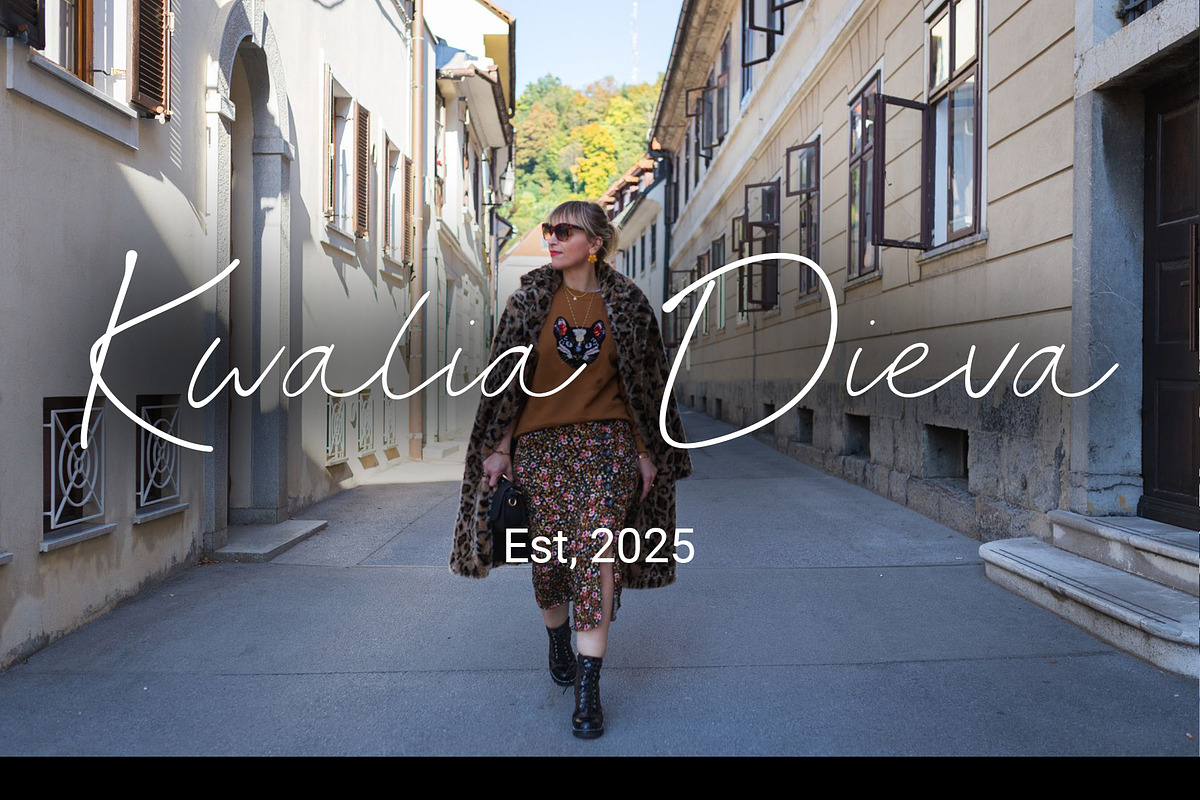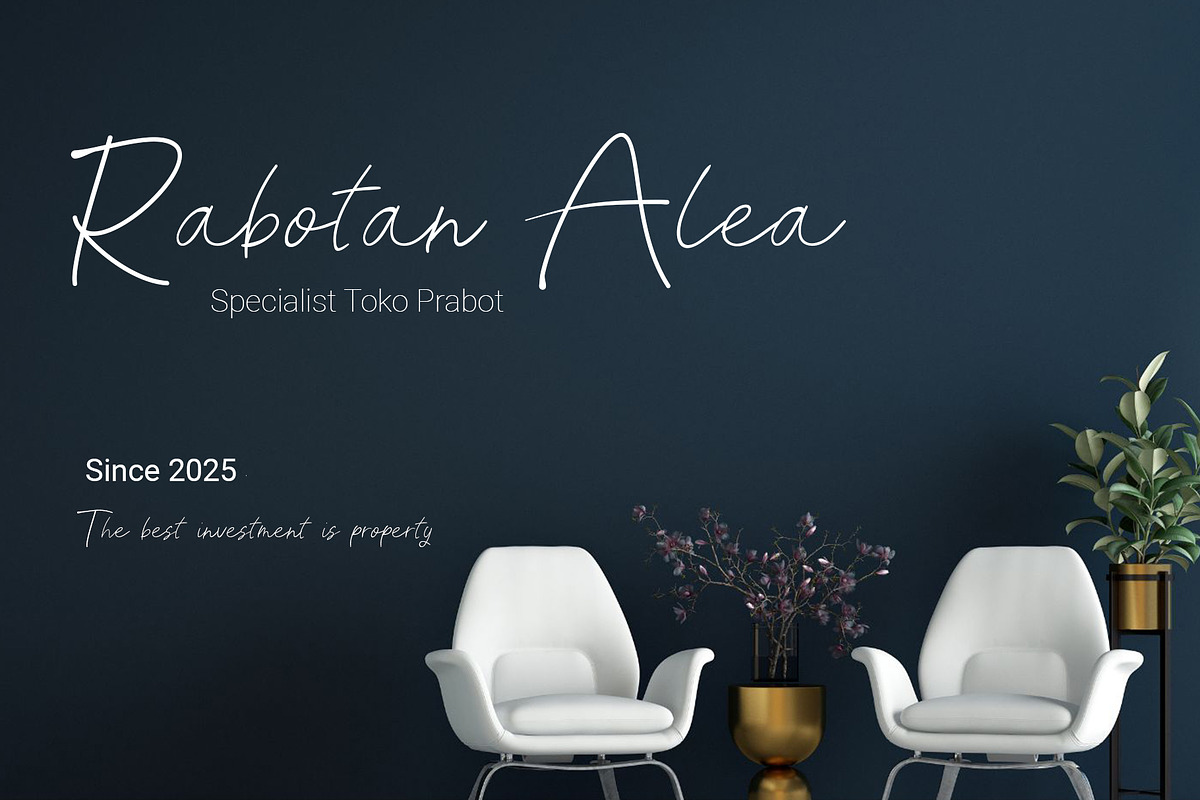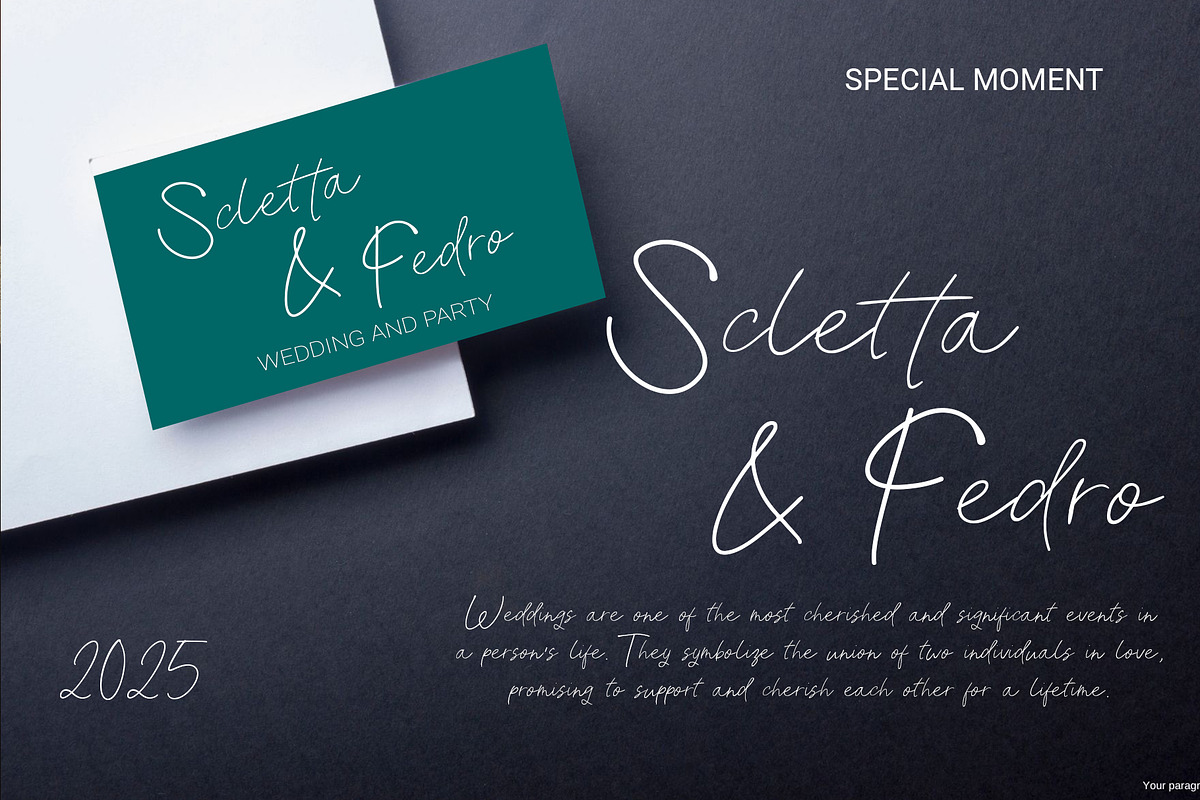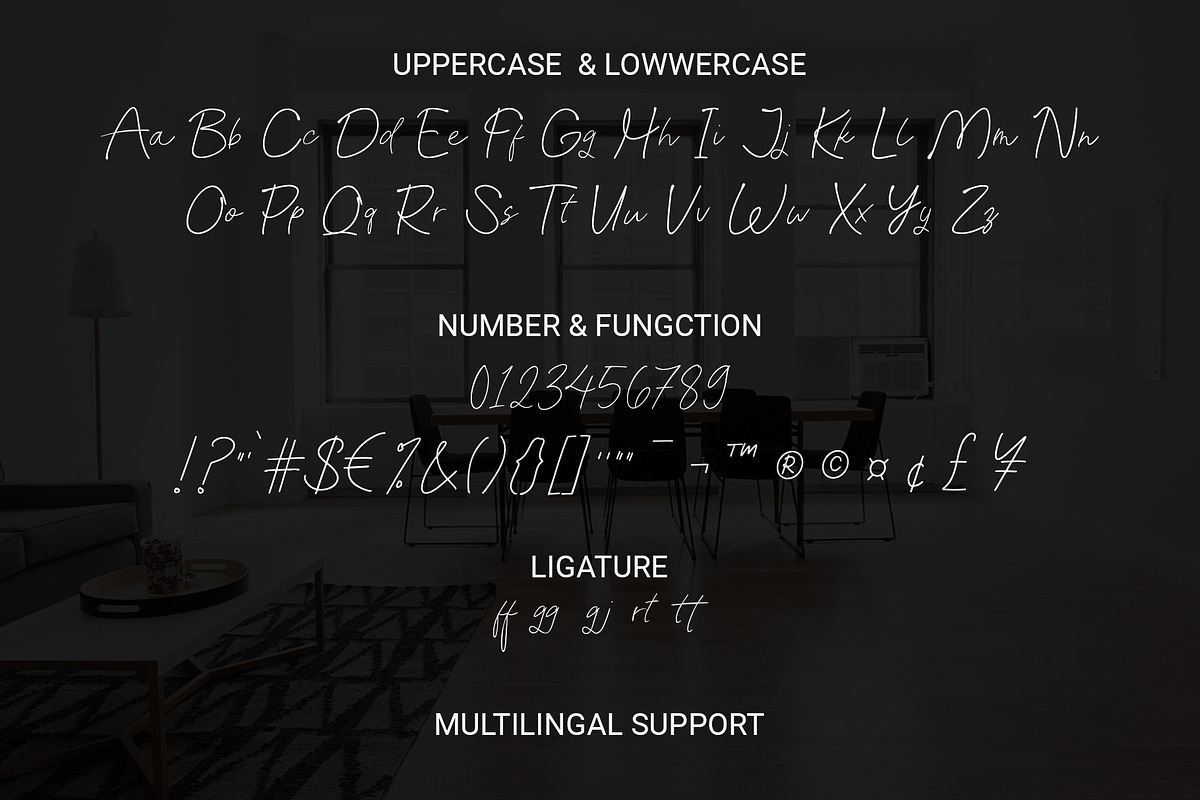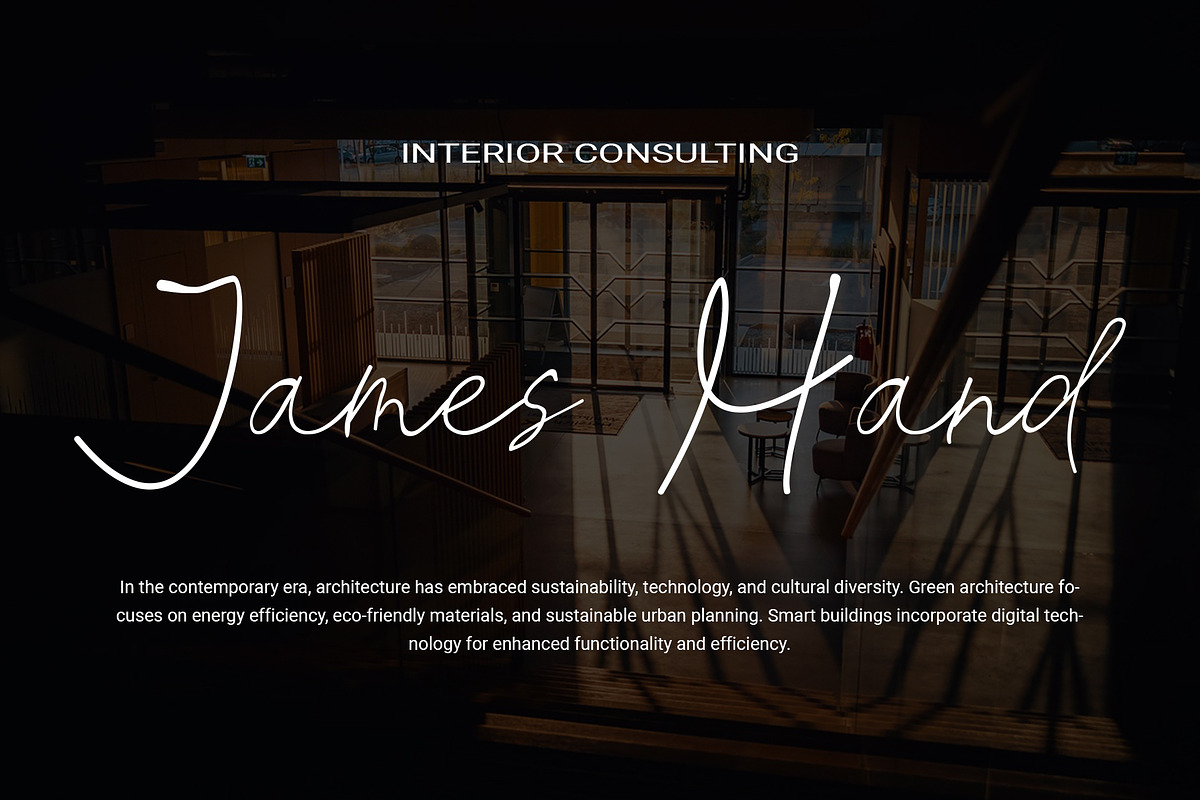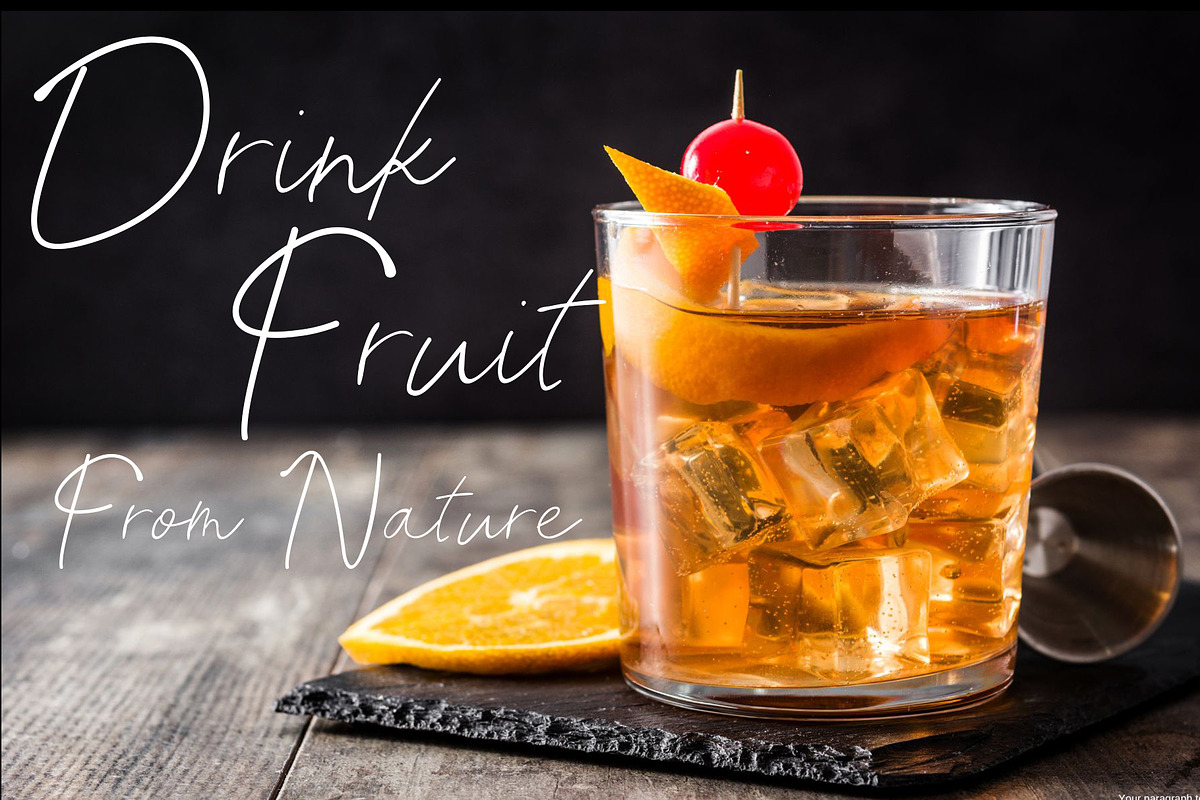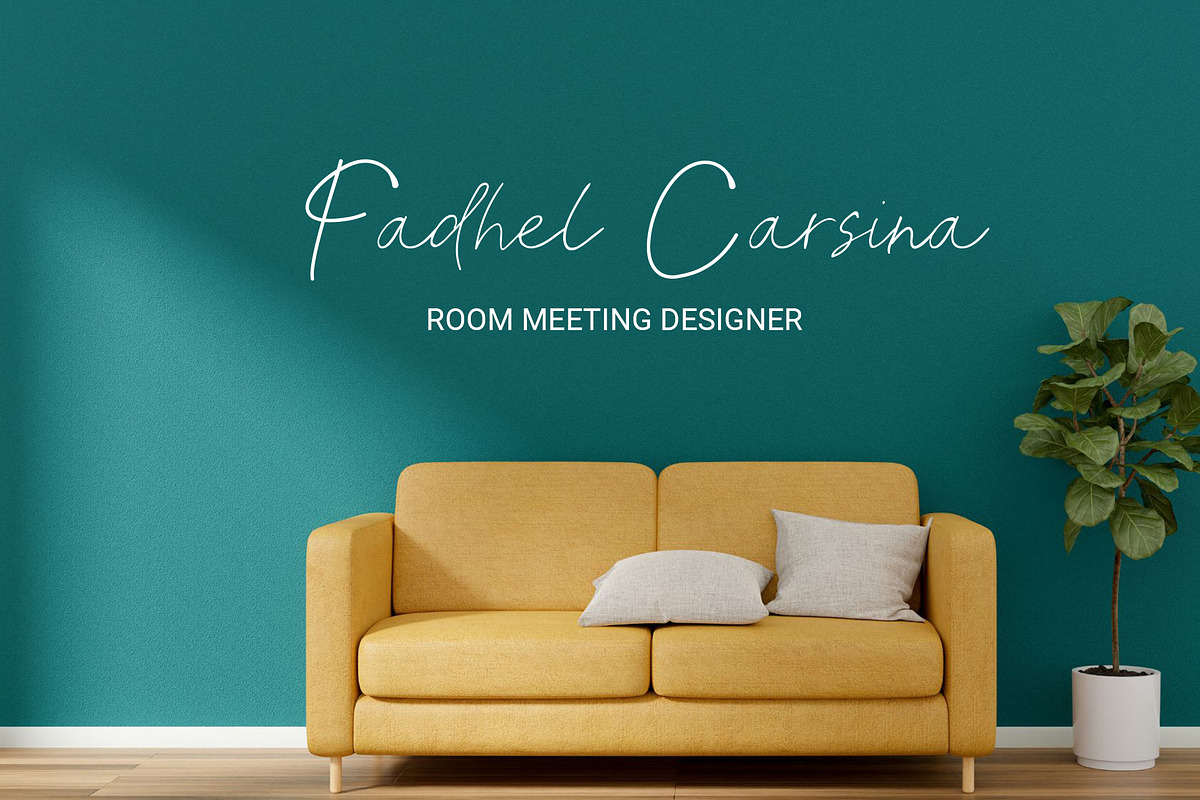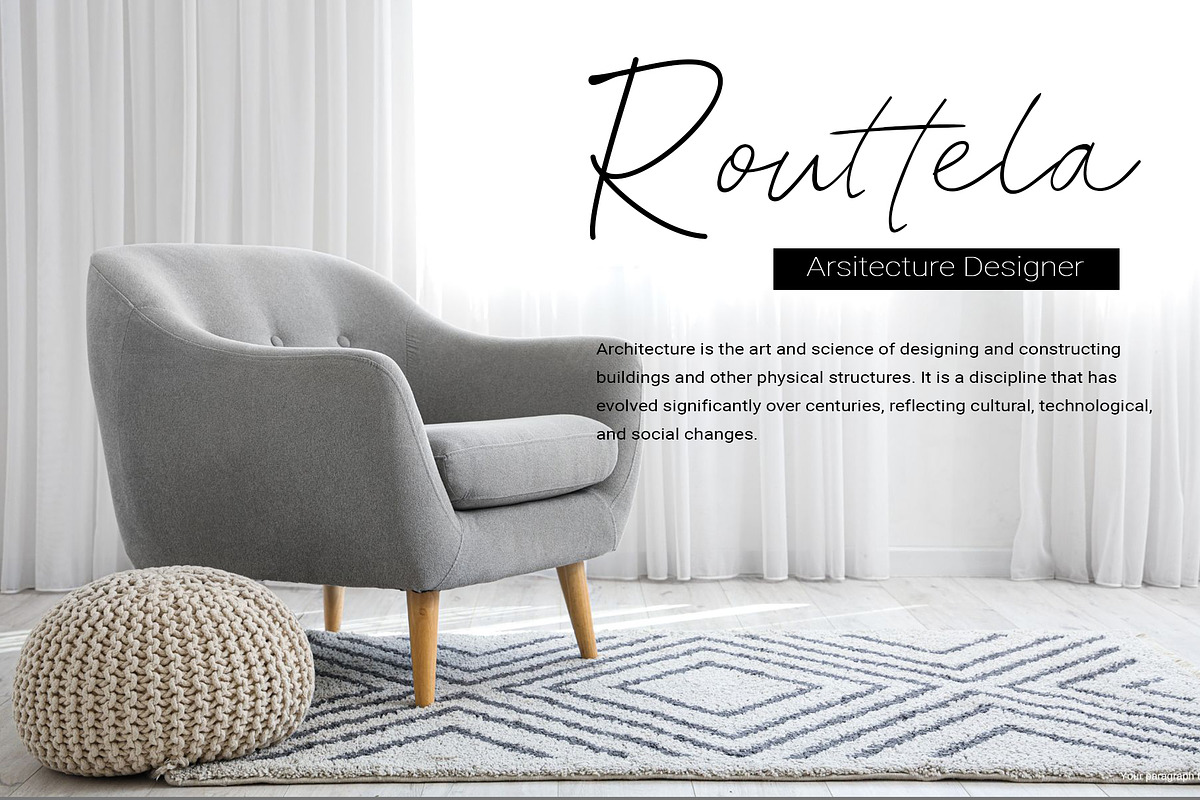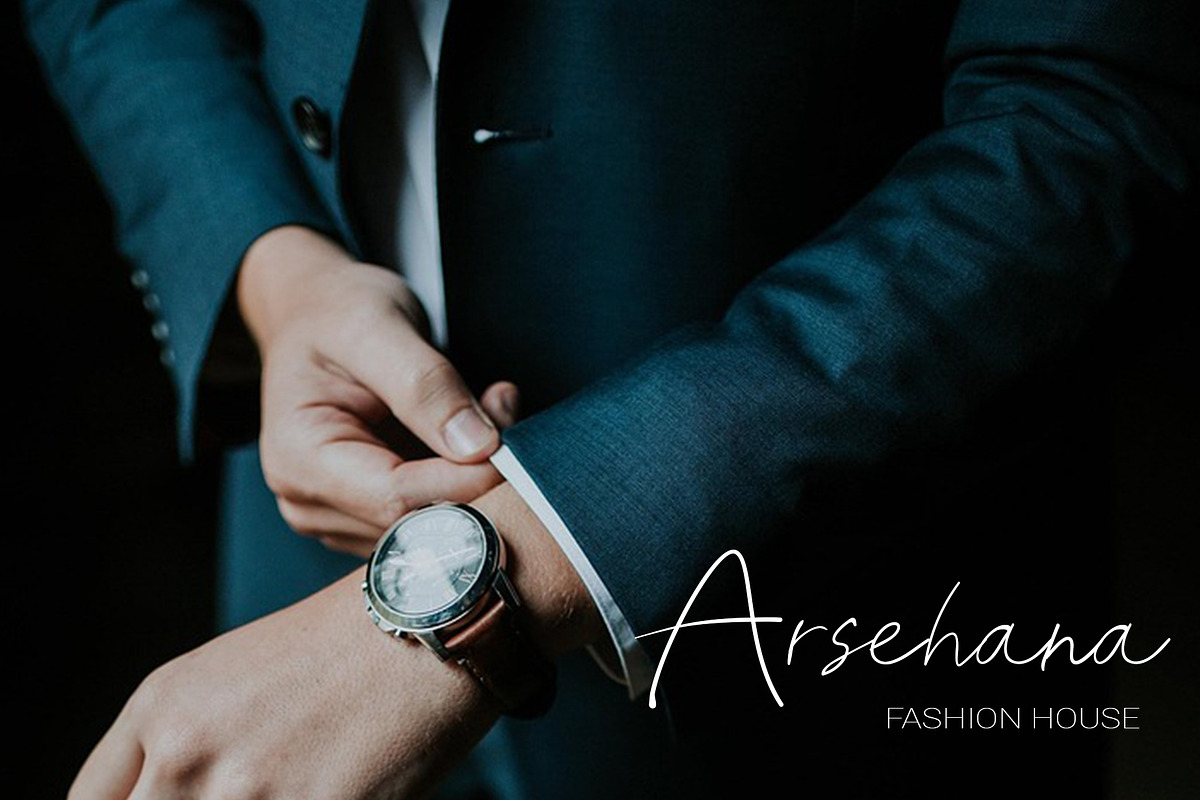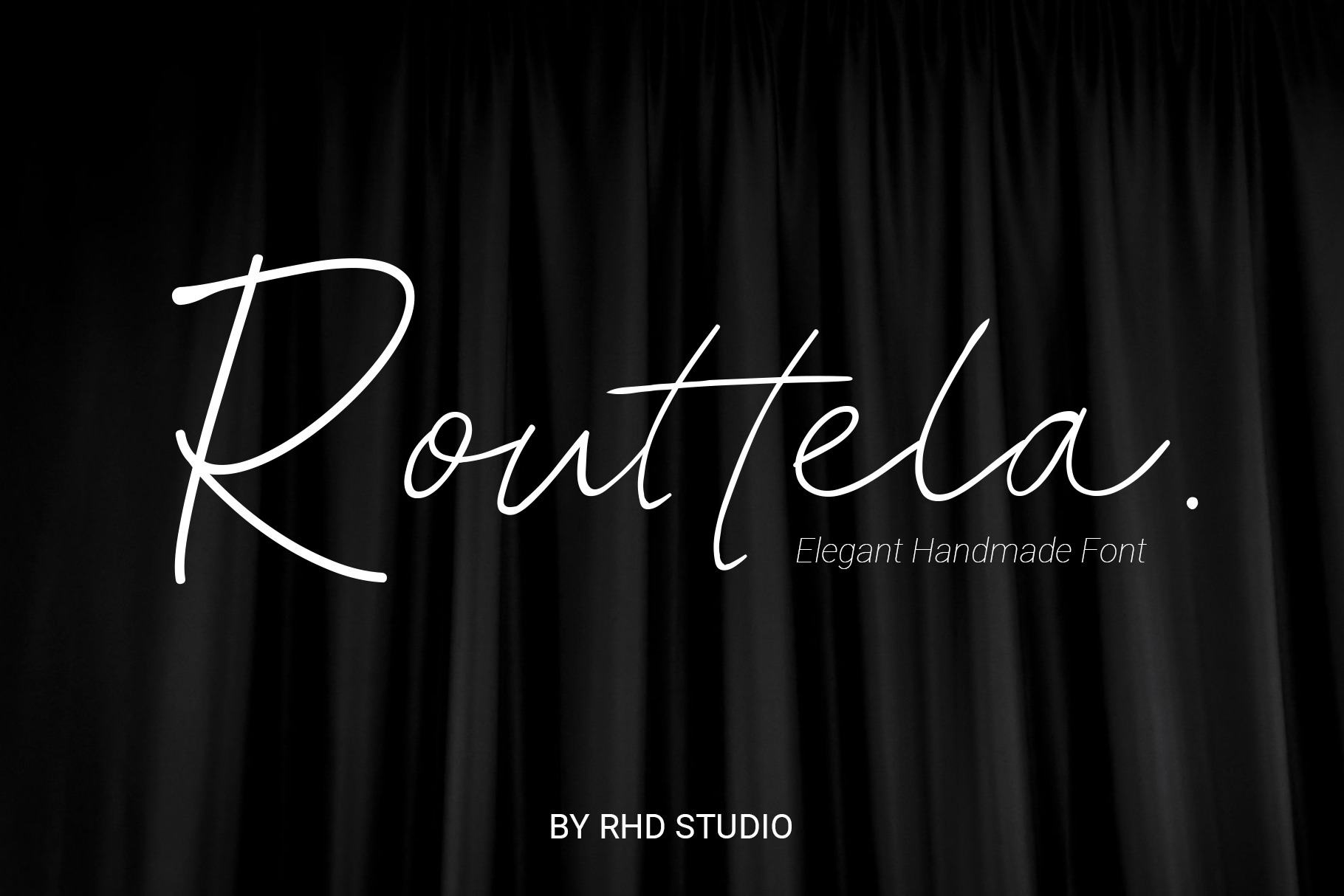
Routtela Elegant Handmade Font
Hello everyone, I would like to introduce Routtela Elegant Handmade Font.
Routtela is modern script font with Handmade character. Routtela bring authentic handwritten font to make your design project stand out! Routtela is a perfectly choice for any creative endeavor, creating, modern, chic, lifestyle design such as logotype, title, cover, branding, invitations, wedding designs, display and magazine, social media posts, advertisements, printed quotes, product packaging, corporate brand, product designs, labels, photography, watermarks, special events and any other project with modern touch.
Ligarure